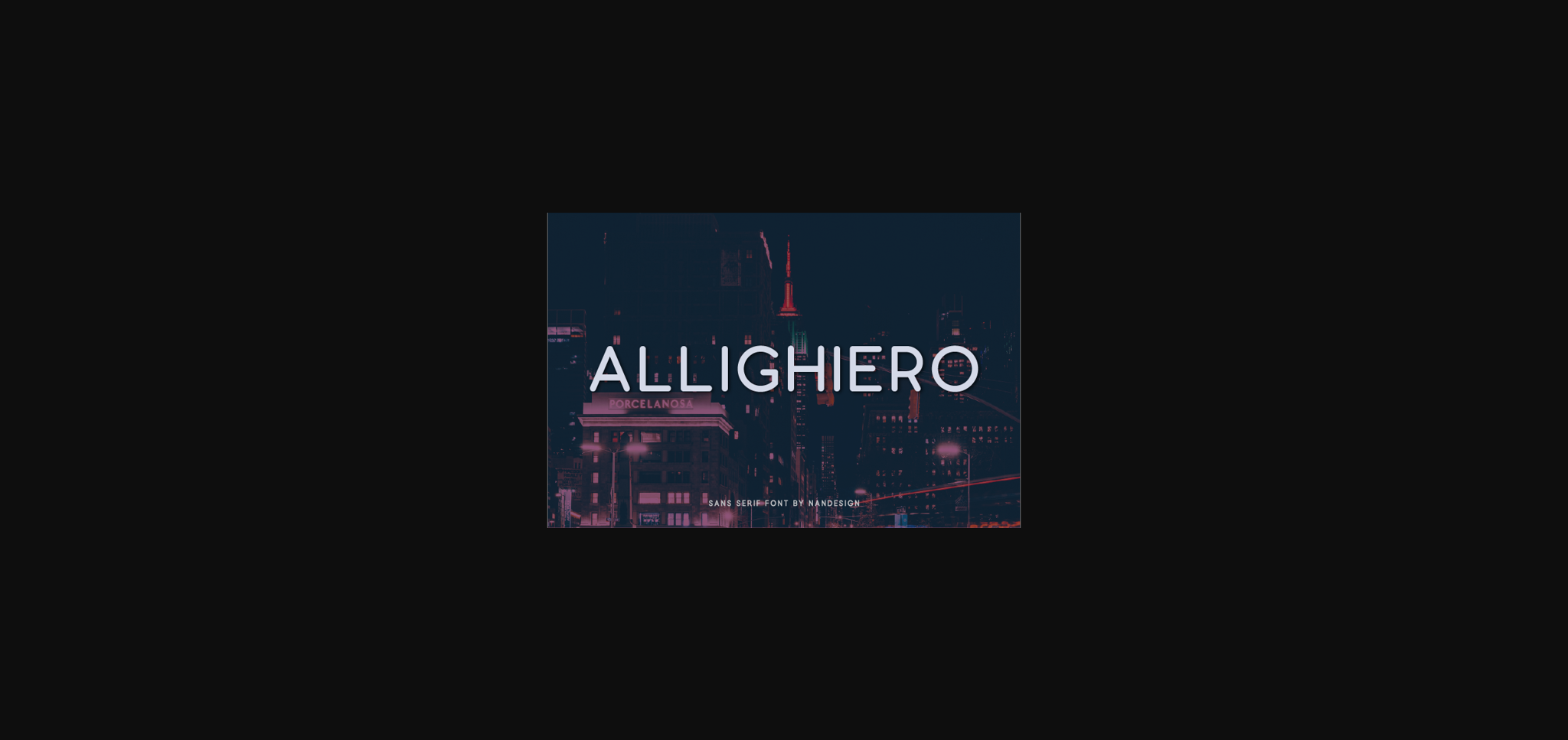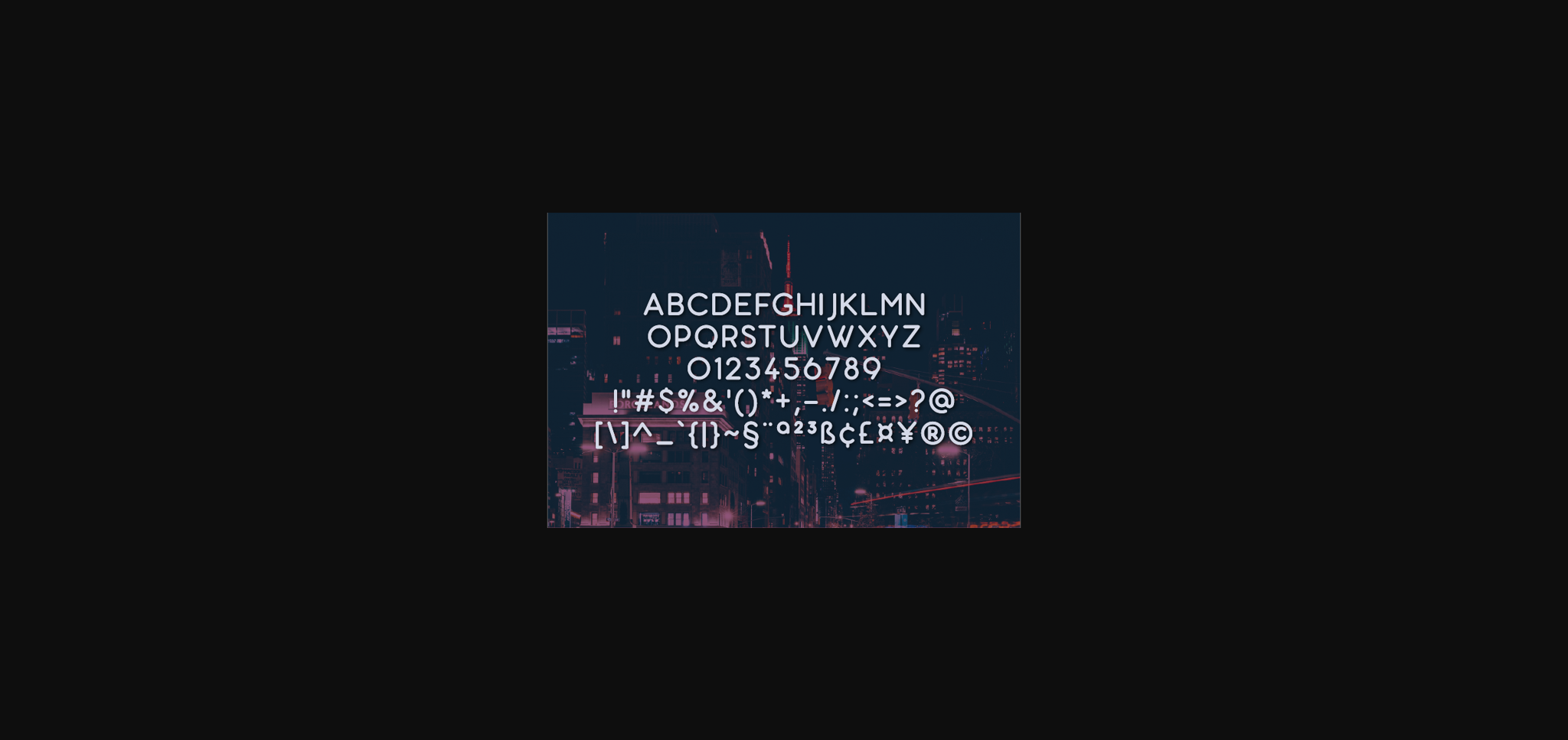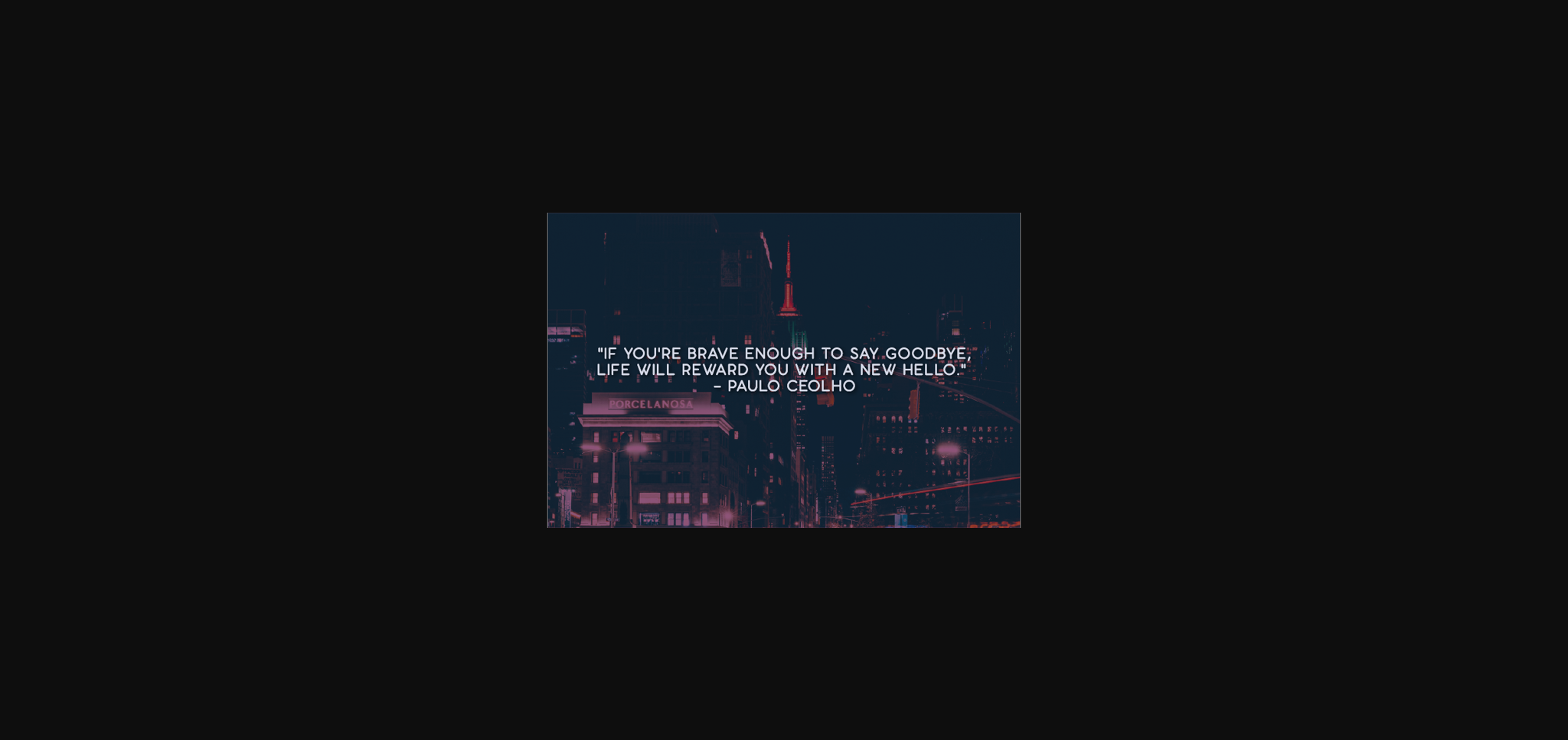
Allighiero Font
About Allighiero Font
Allighiero is a simple and clean sans serif font. It can be used for various purposes such as logos, invitations, headings, t-shirts, letterhead, signage, labels, news, posters, badges and so much more.